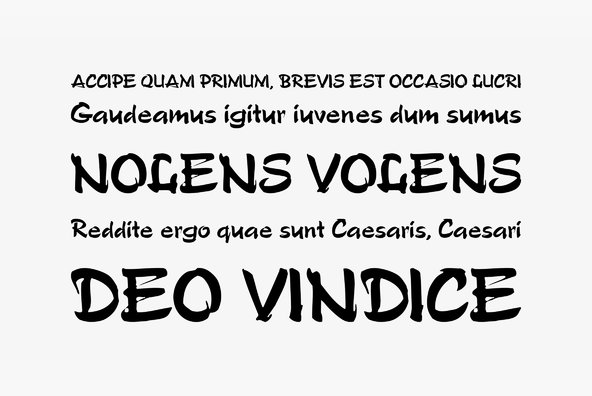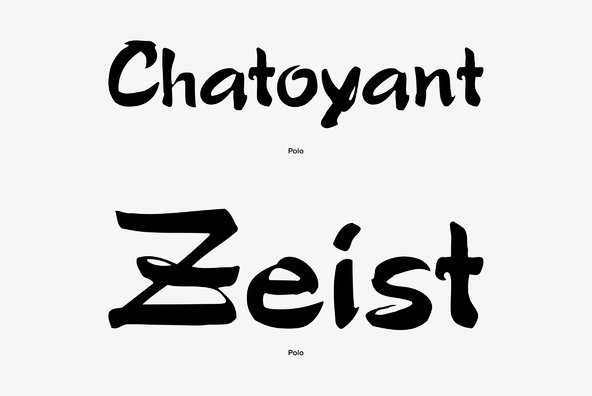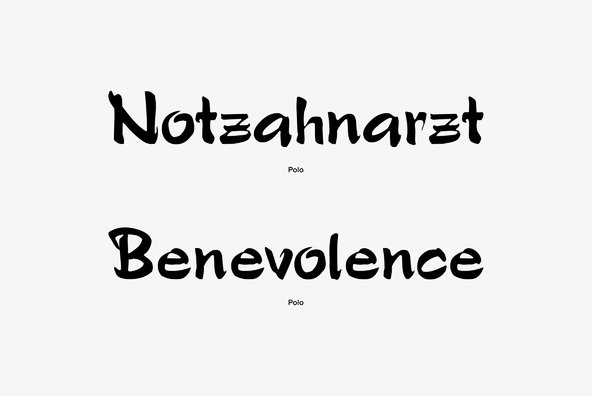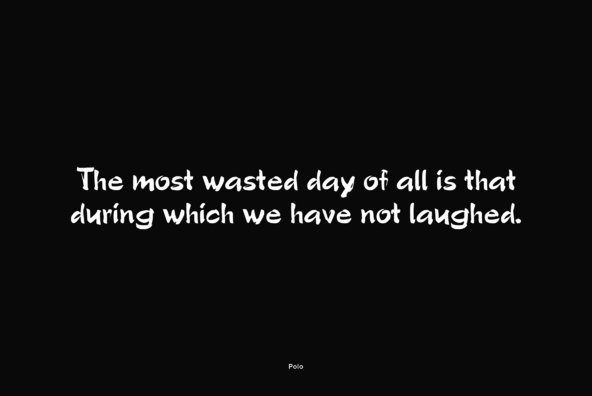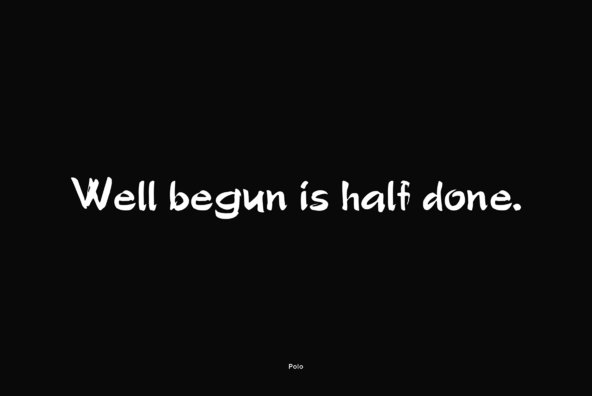
Polo is one of Ralph M. Unger's great original designs, a very beautiful non-slanted script font, quite lively despite its upright characters. Polo is reminiscent of the wild brush typefaces of 1960s. Ralph M. Unger designed and digitized this font in 2002.